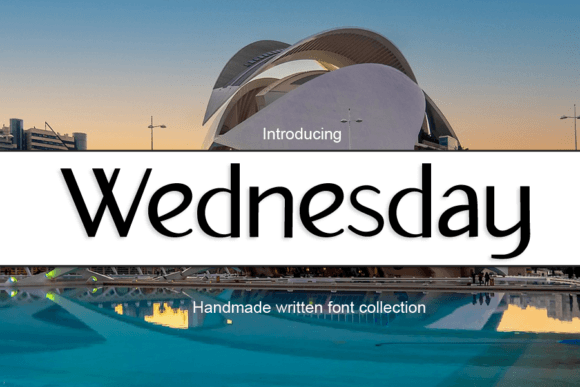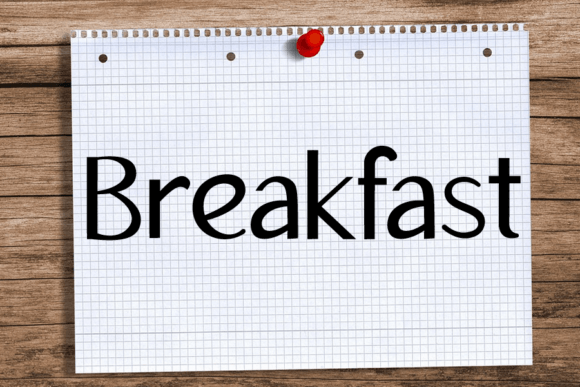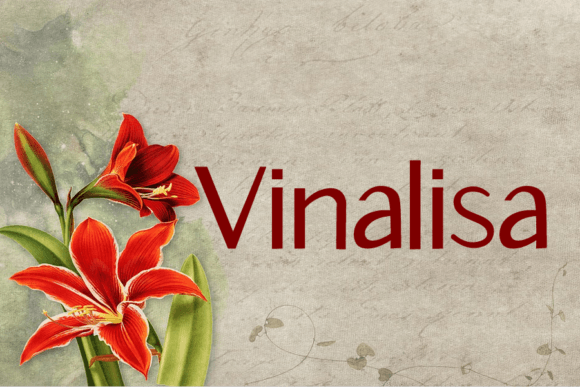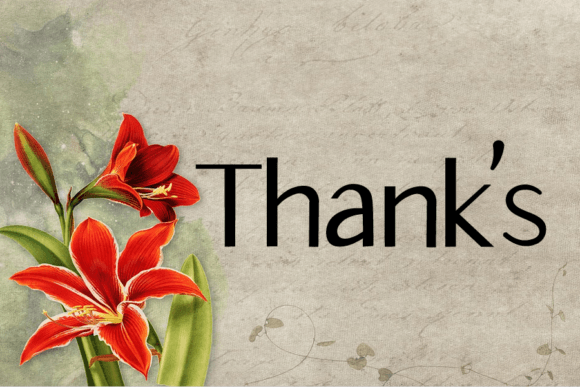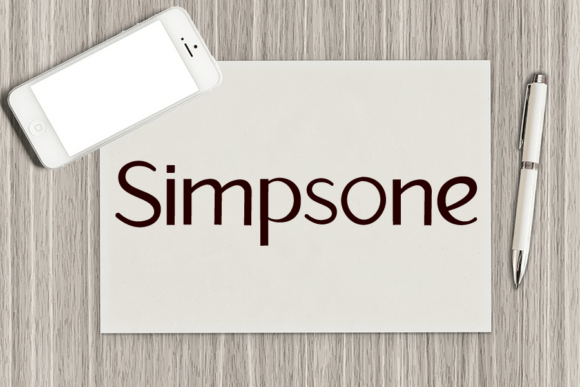
Wednesday Font
About Wednesday Font
Wednesday is a contemporary and stylish handwritten font that effortlessly blends coolness with a modern aesthetic. This versatile font is perfect for a range of creative endeavors, be it crafts, digital design, presentations, or the creation of greeting cards. With its adaptable design, Wednesday has the potential to seamlessly become your favorite go-to font, regardless of the occasion.
The font’s inherent coolness adds a touch of sophistication to your projects, making it suitable for a wide array of purposes. Whether you’re working on a sleek digital design or adding a personal flair to greeting cards, Wednesday brings a unique and trendy vibe that resonates with modern design sensibilities.
Its versatility shines through in various applications, from crafting visually appealing presentations to enhancing the charm of handmade crafts. Wednesday’s modern handwriting style injects a contemporary edge into your designs, making it a font that suits both professional and personal contexts.
As you integrate Wednesday into your projects, you’ll discover its potential to elevate the overall aesthetic. Its cool and modern characteristics make it a font that stands out, making a memorable impression on your audience.
In summary, Wednesday is not just a font; it’s a design tool that effortlessly combines coolness and modernity. Whether you’re working on a digital project or a tangible craft, let Wednesday be the font that adds a touch of style and sophistication, making it your preferred choice for all occasions.